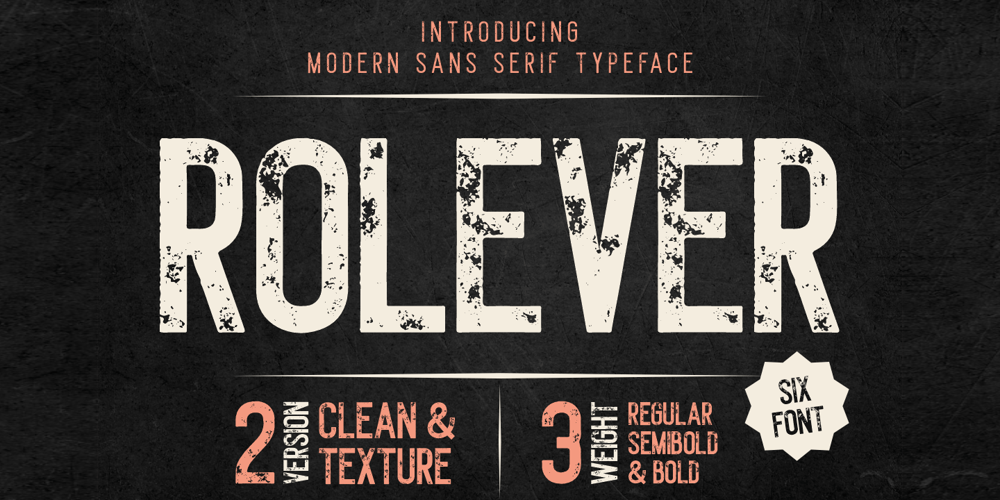
Rolever Texture Font Family was designed by Putra Novembria Candra Kusuma and published by Putracetol. Rolever Texture contains 6 styles and family package options. Elevate your designs with Rolever – Modern Sans Serif Font. This versatile typeface boasts three distinct weights – regular, semibold, and bold – allowing you to infuse your creations with a range of visual impact. With two versions available – clean and textured – Rolever offers design flexibility that caters to your unique preferences.